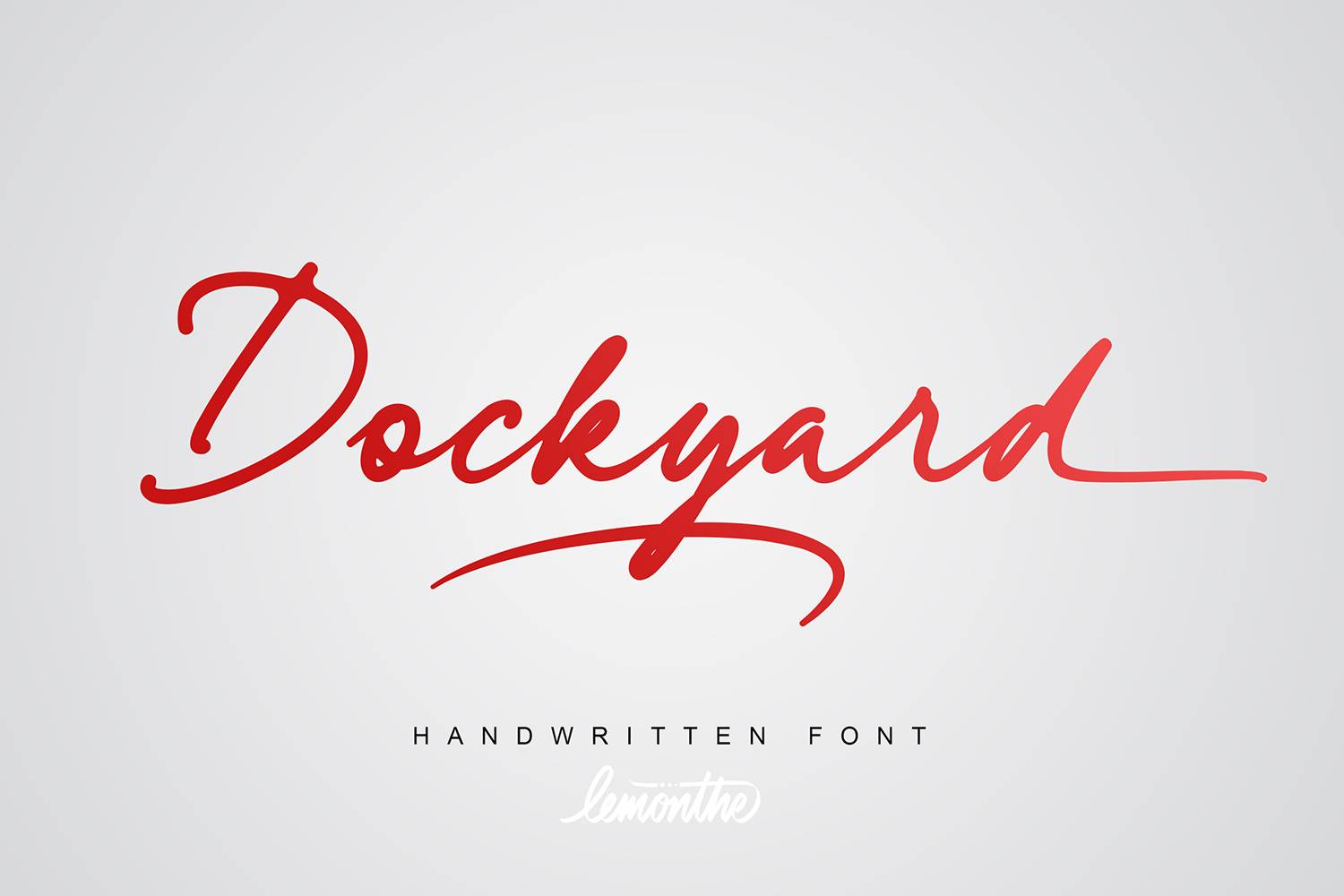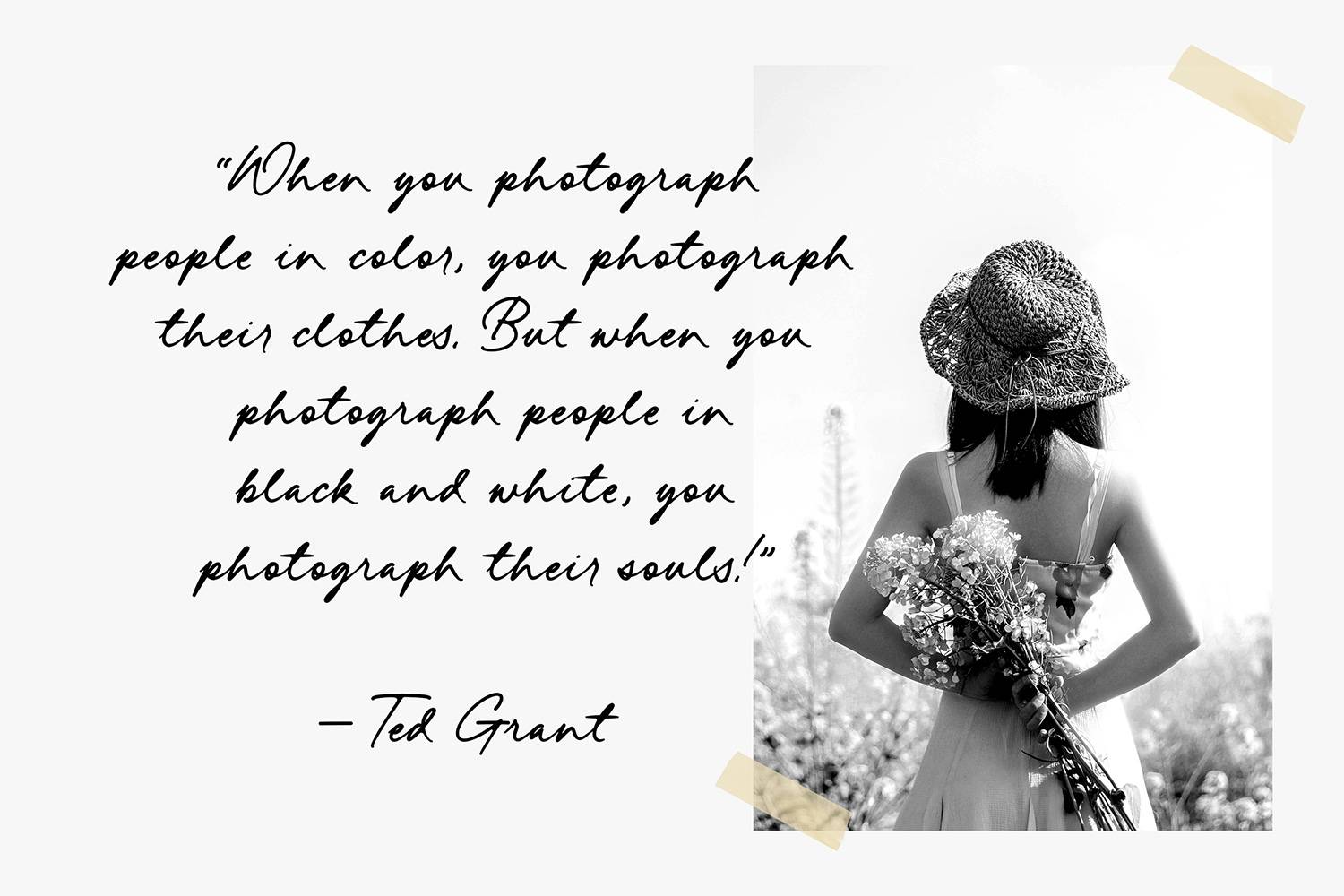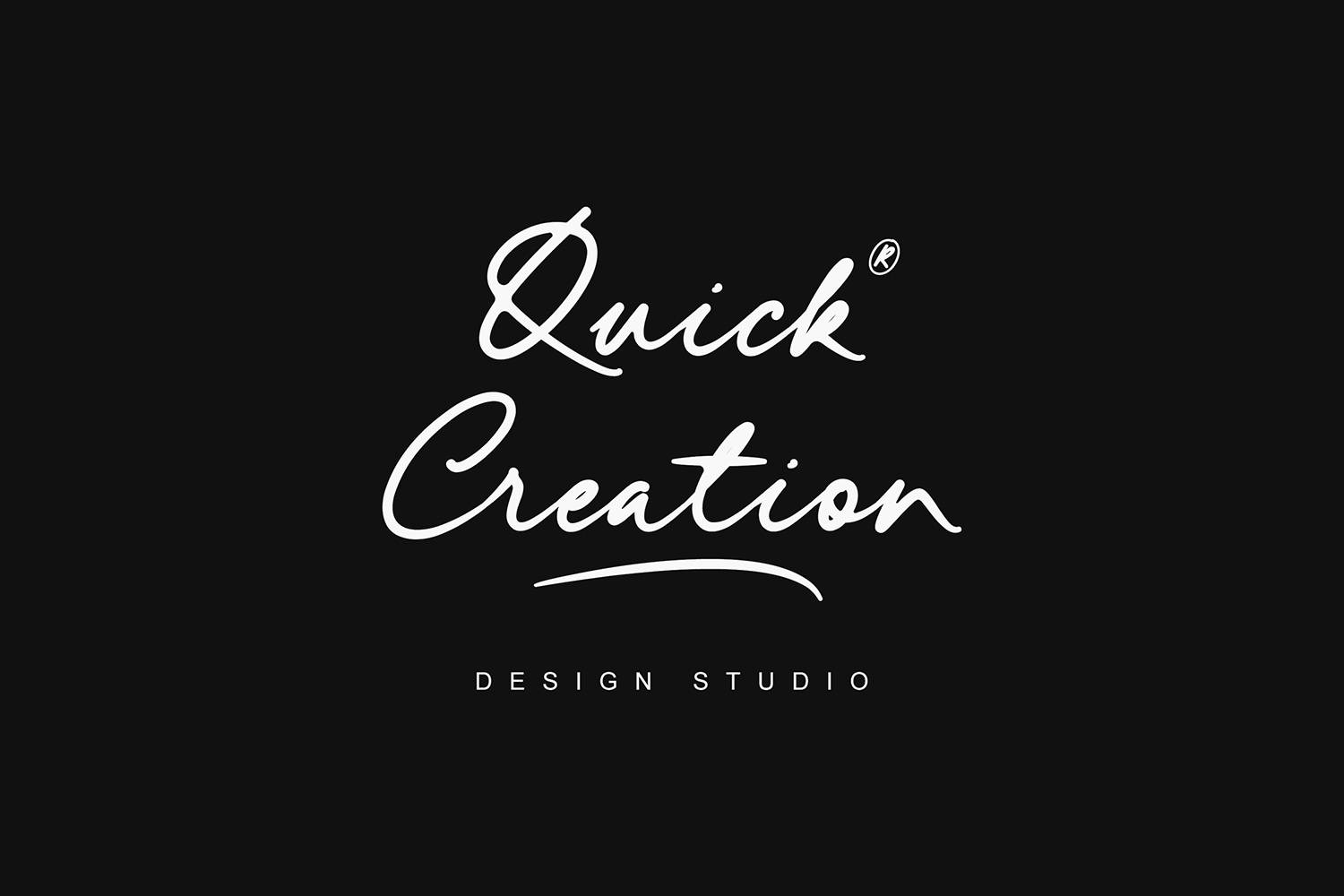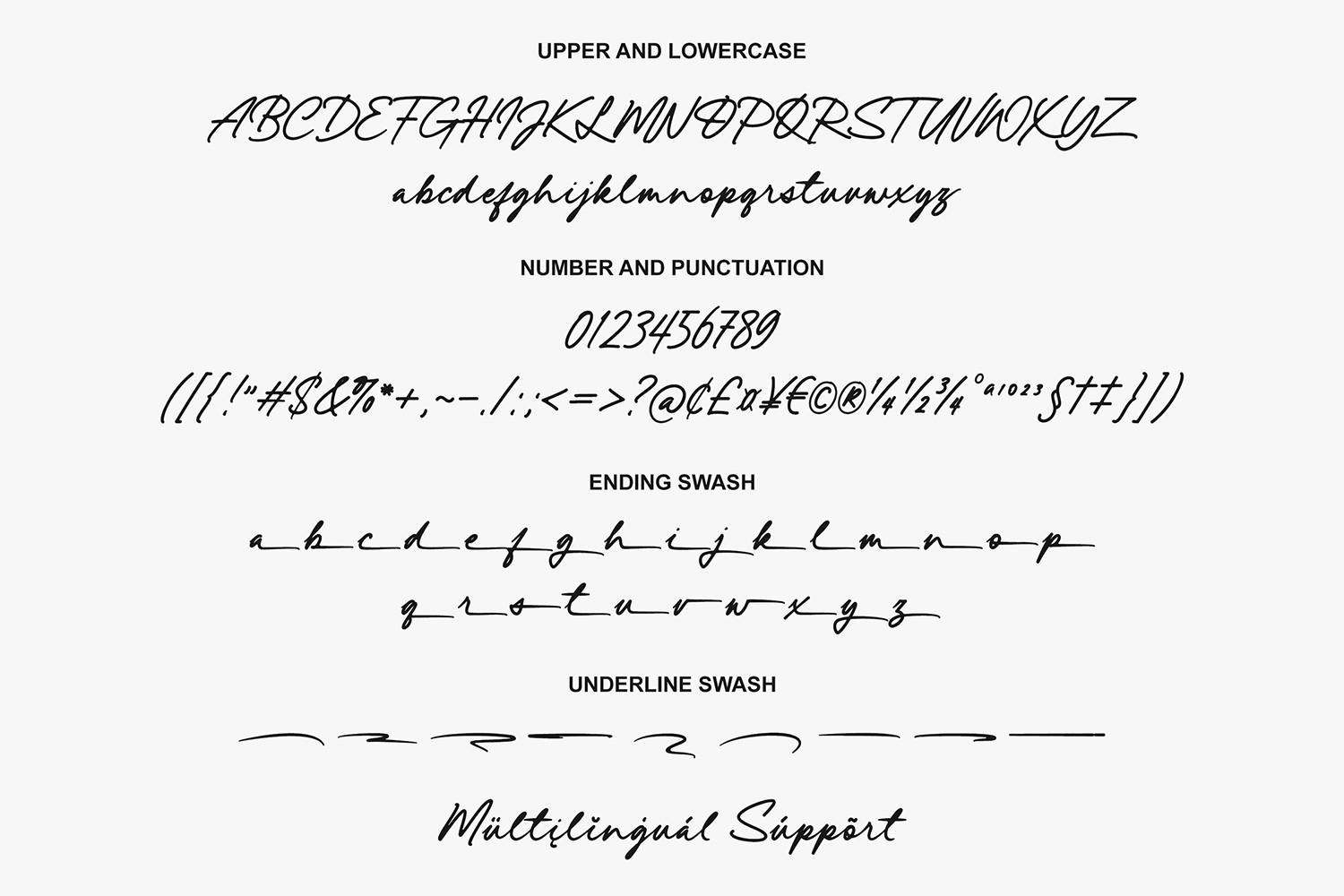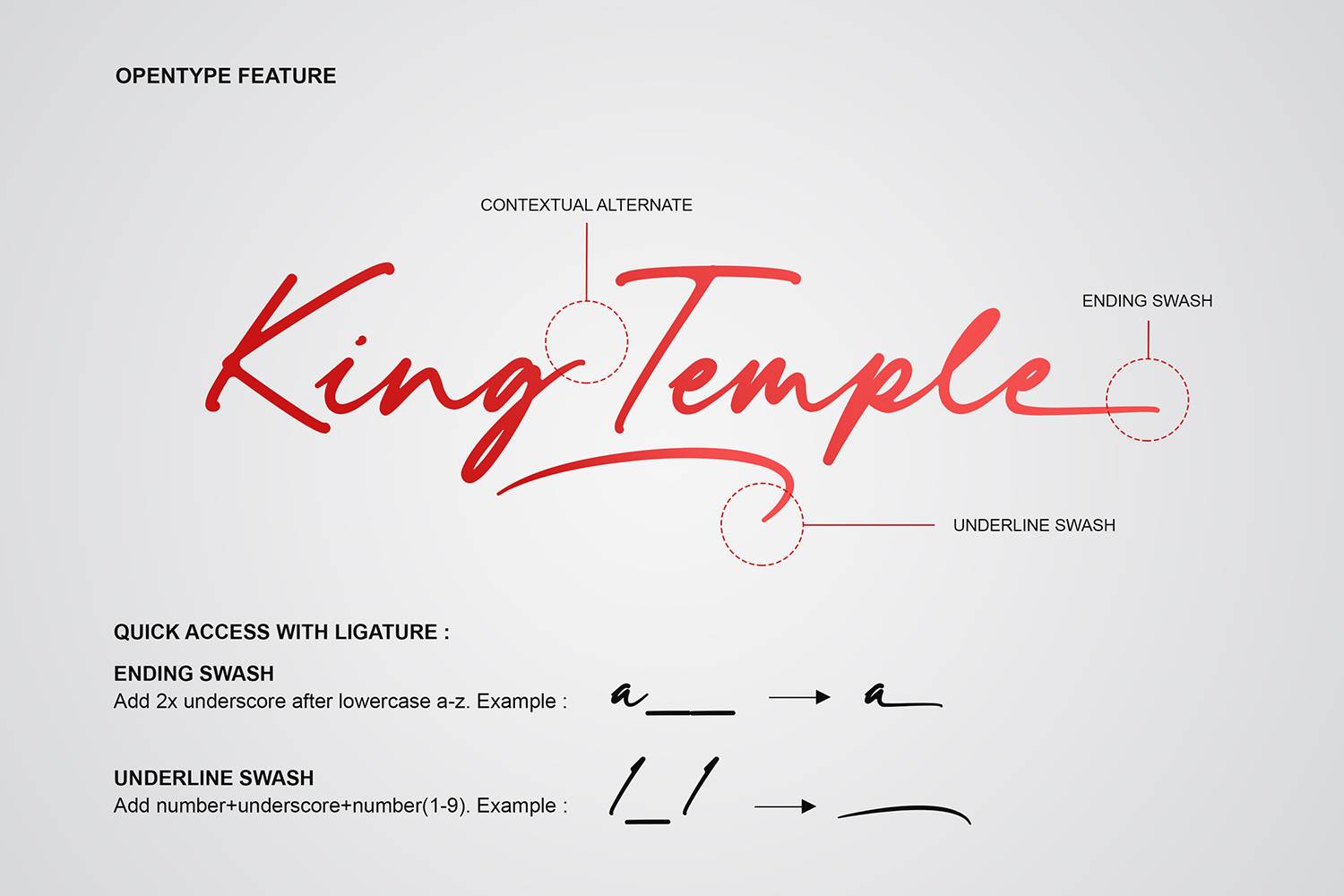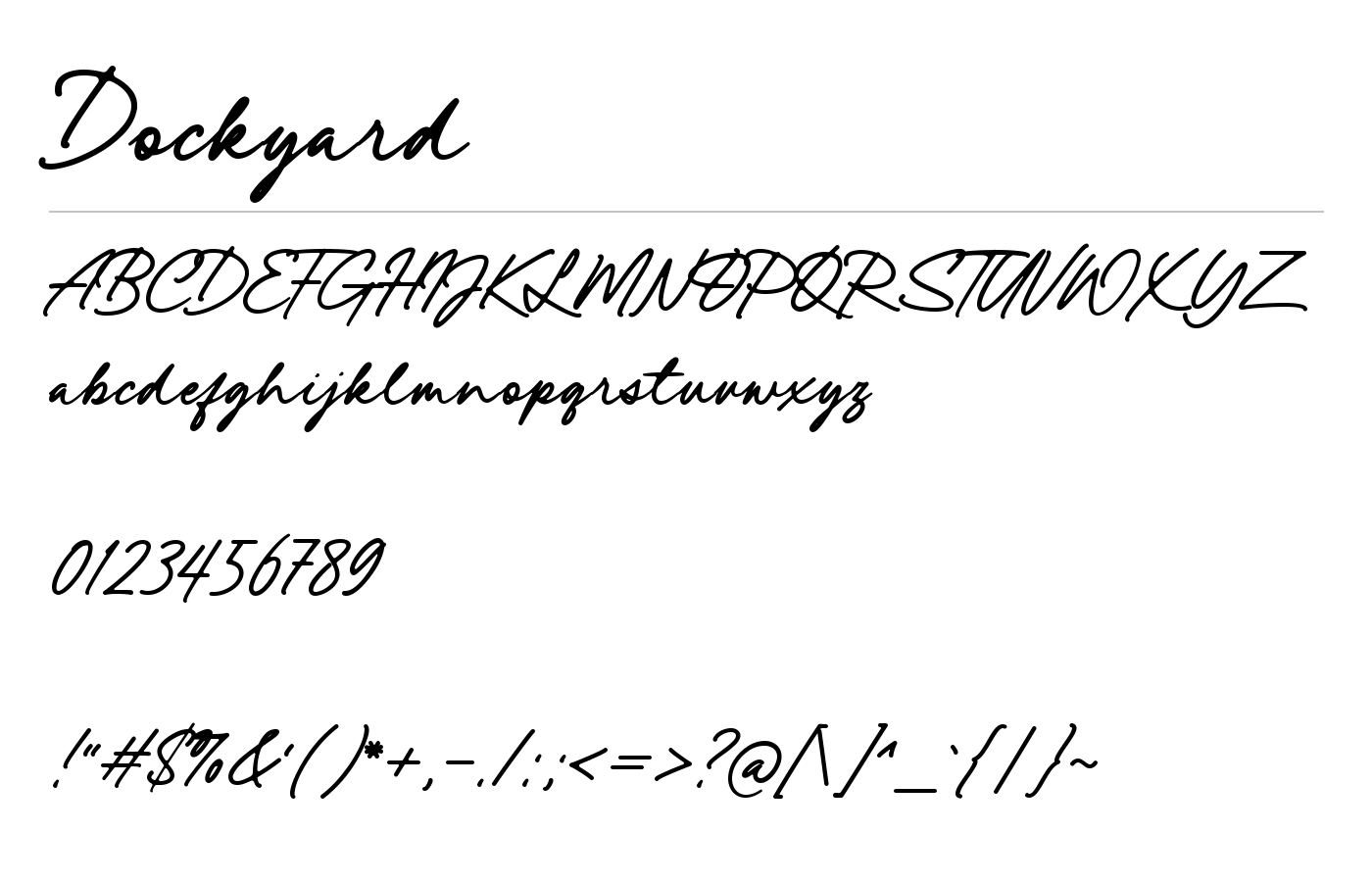
Dockyard is a graceful script font characterized by its smooth, flowing strokes and elegant cursive style. With a moderate weight and slightly condensed width, it offers a refined, personal touch ideal for invitations, branding, and creative headlines. Its handwritten feel conveys warmth and sophistication, making it perfect for projects needing a stylish, approachable, yet polished look.
Dockyard Font
About Dockyard Font
| Font family | Dockyard Font |
| Release date | 2022-07-22 |
| Designer | Dwi Ahidian |